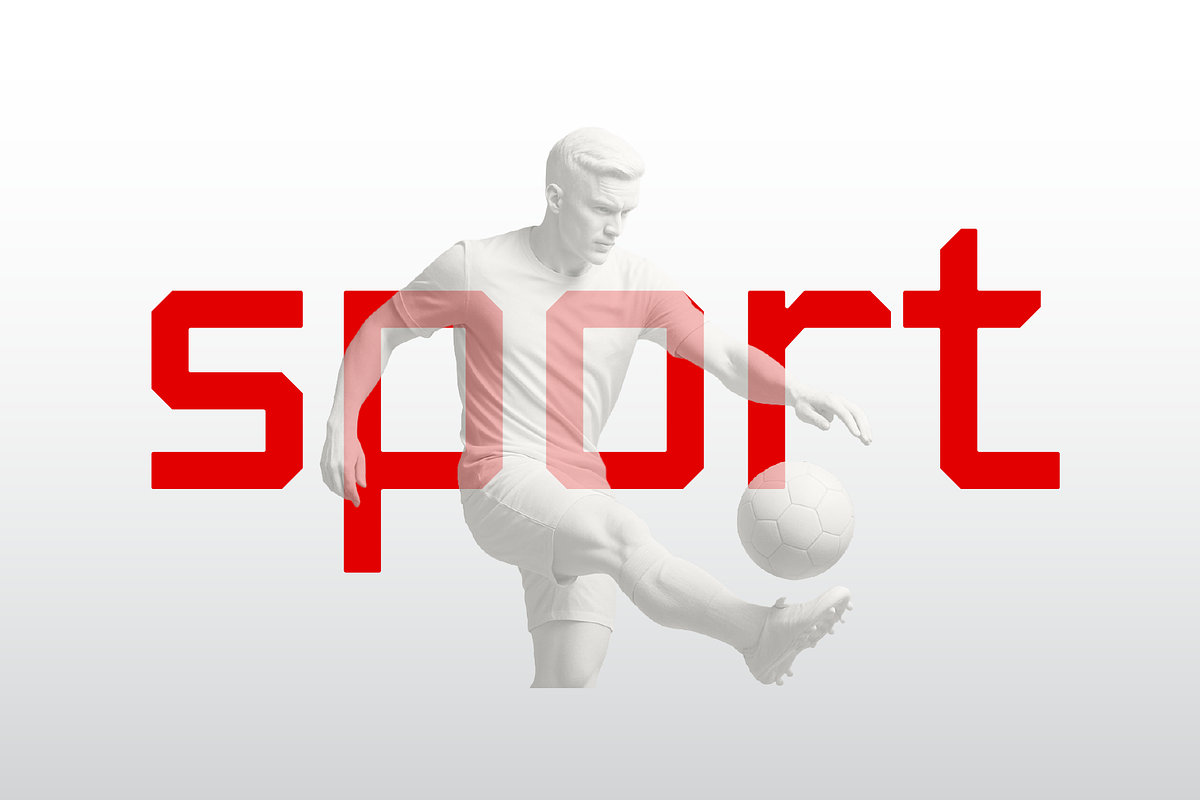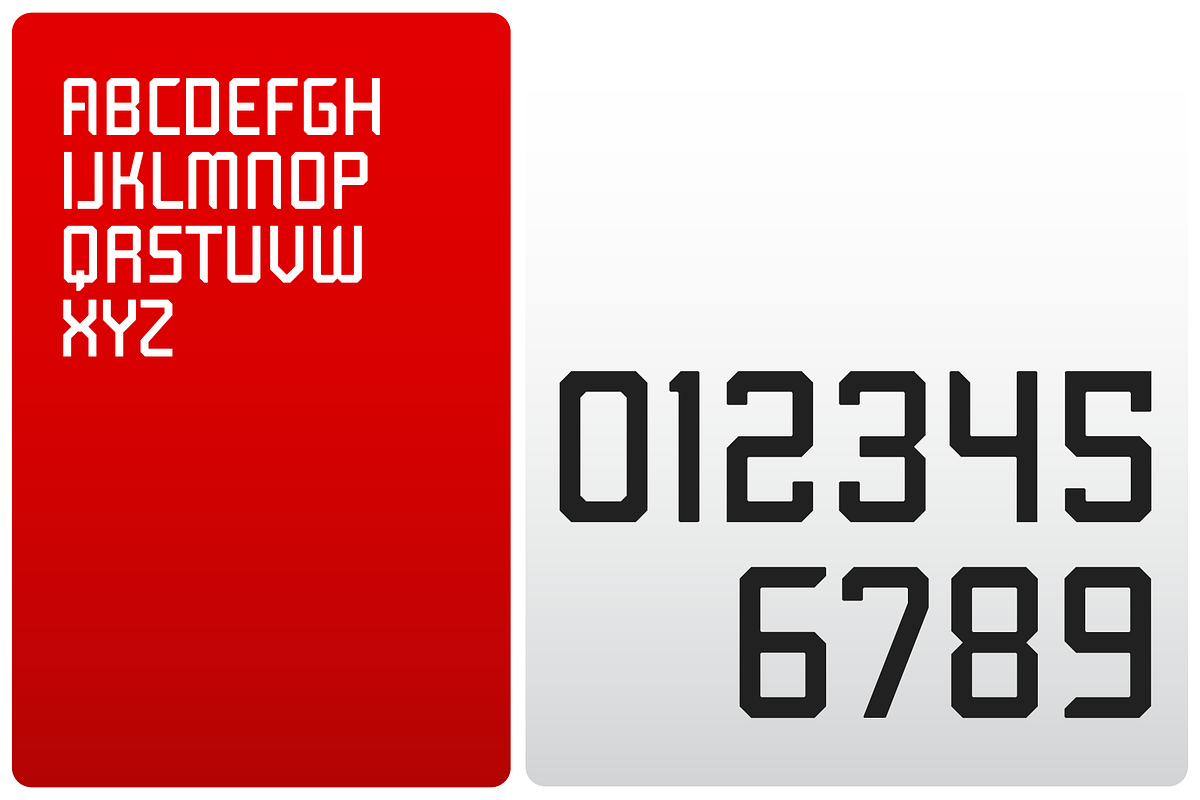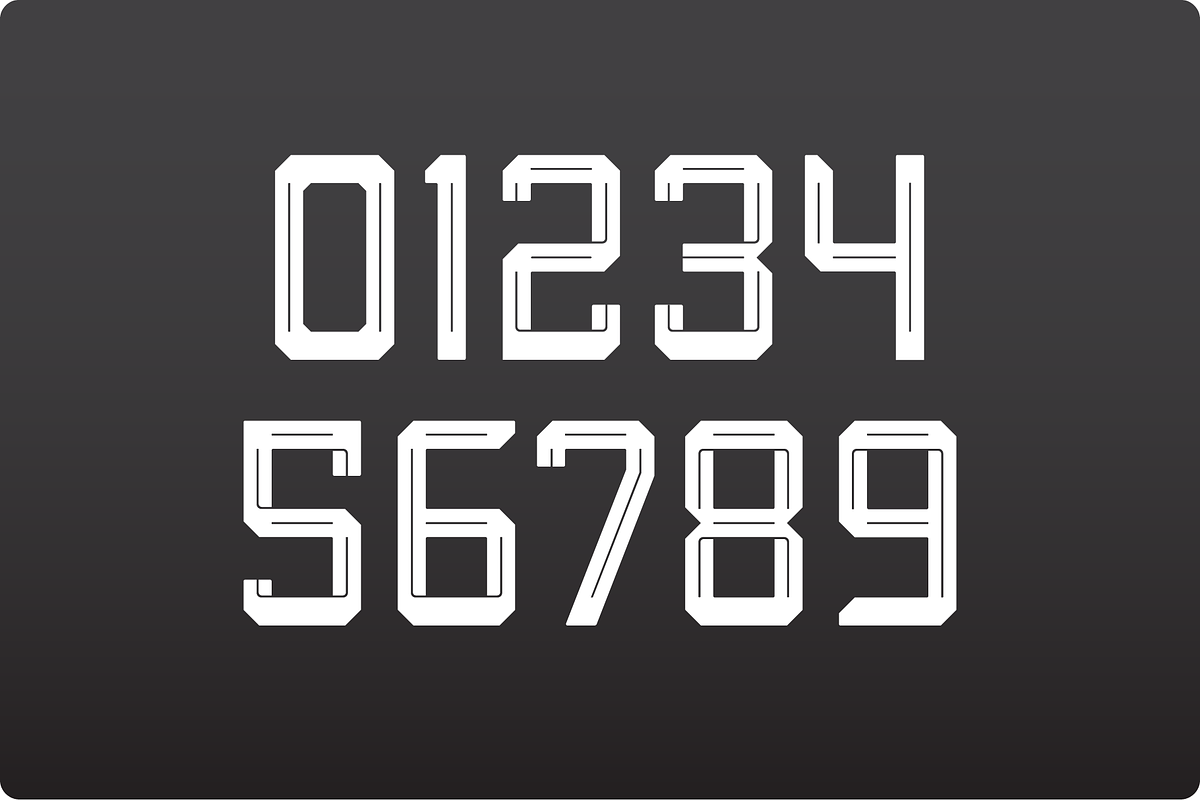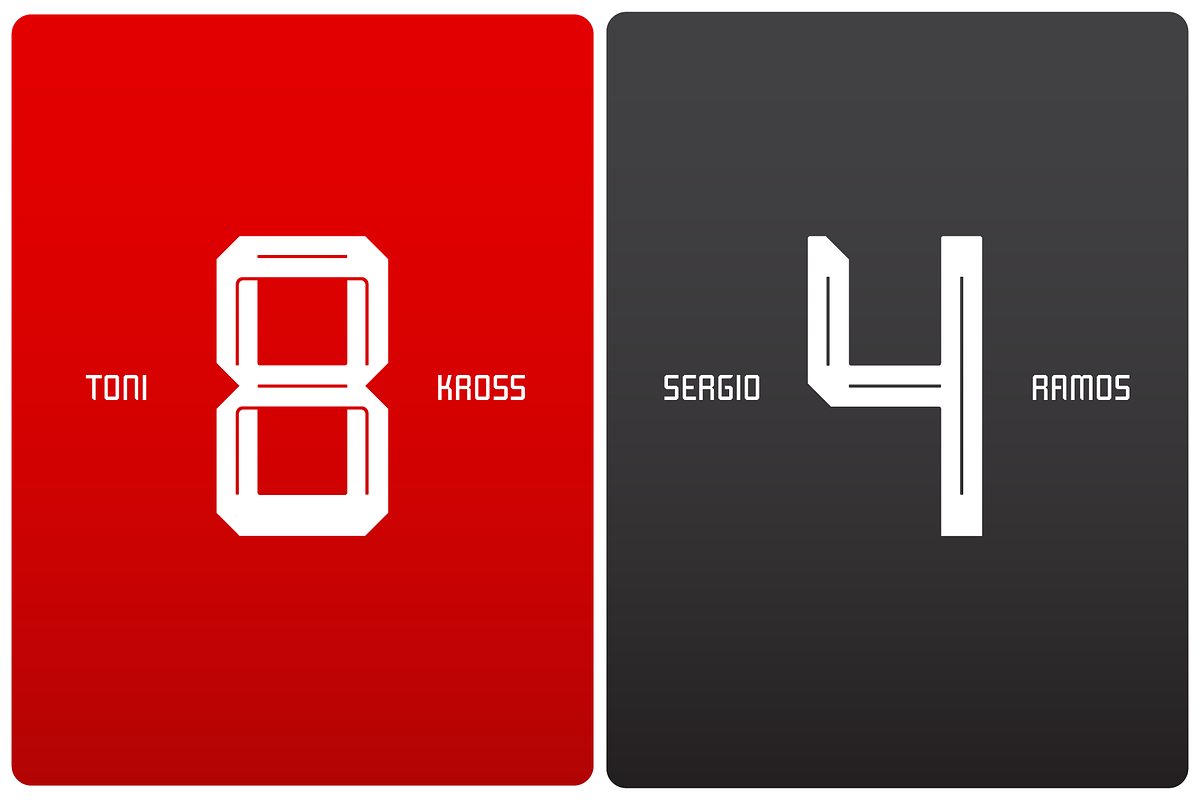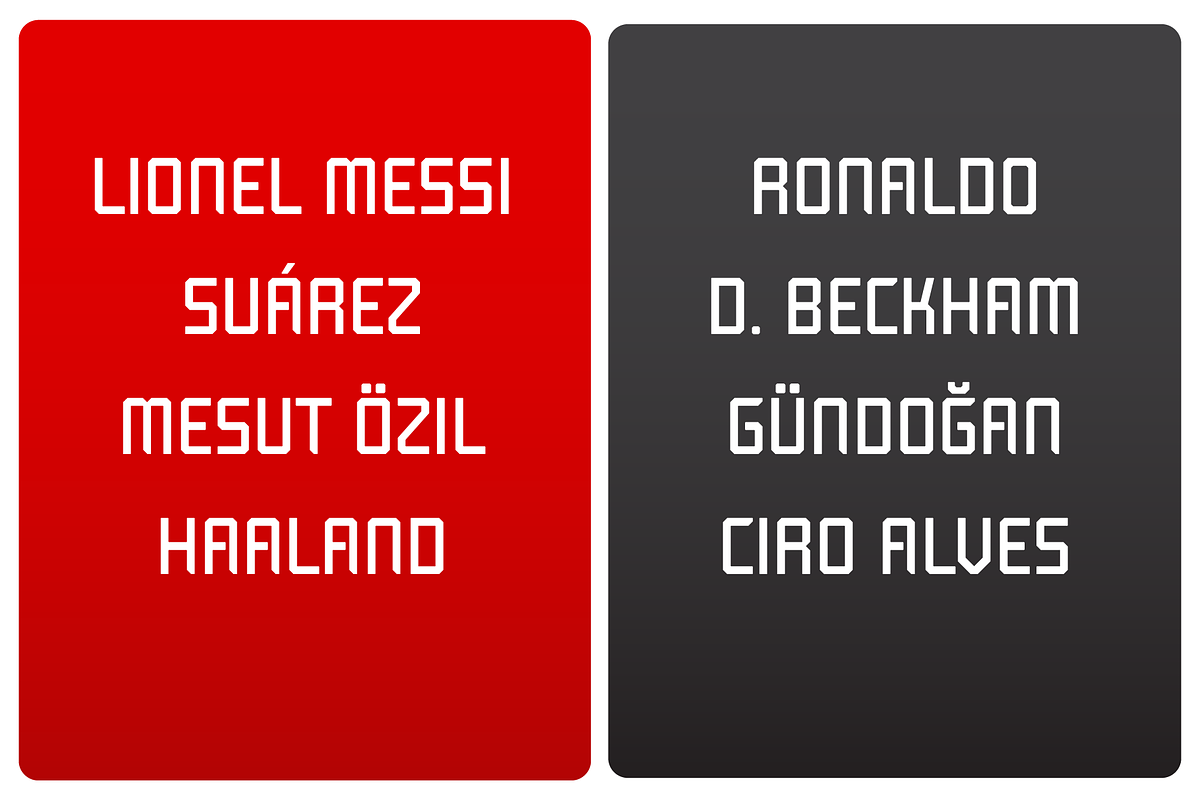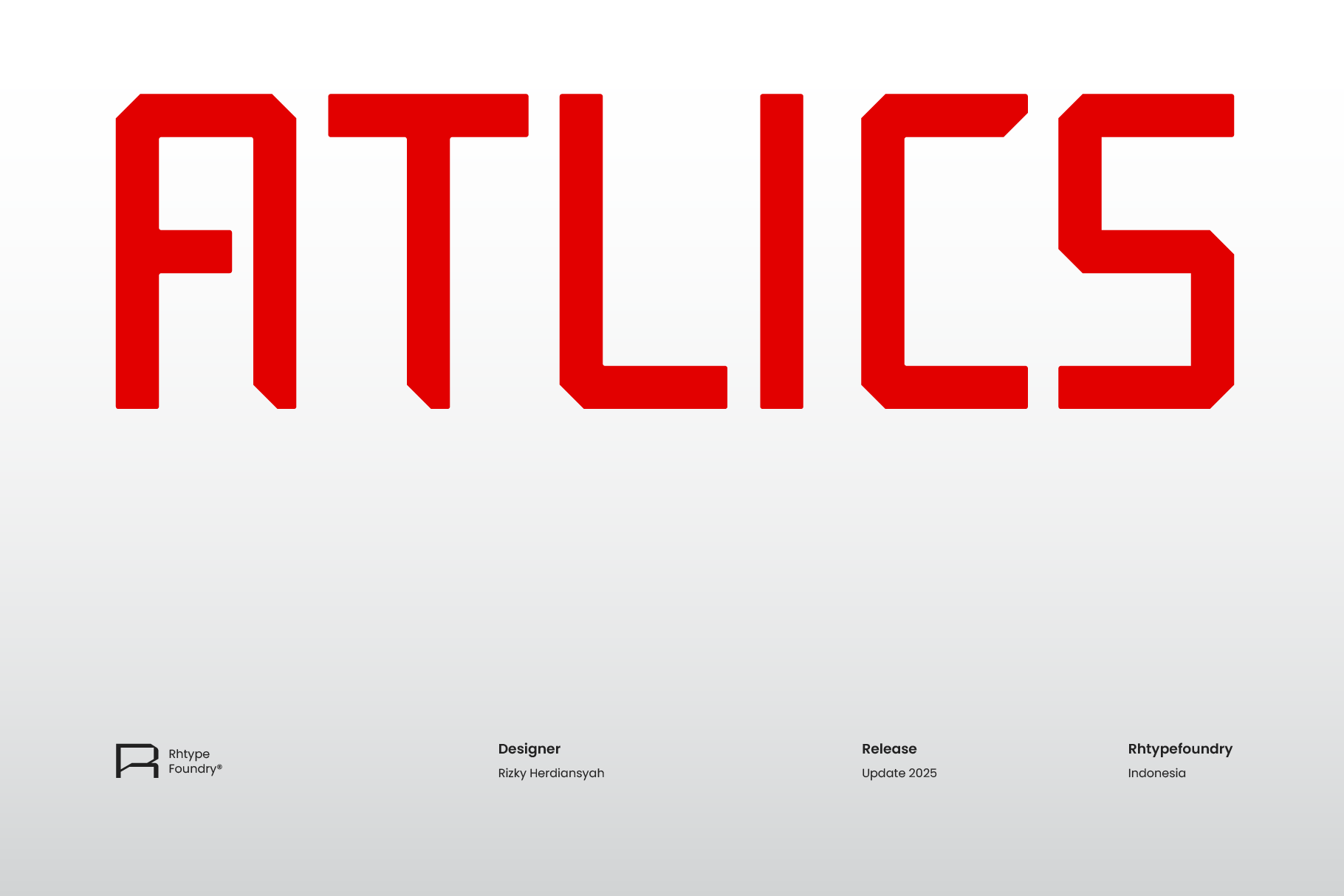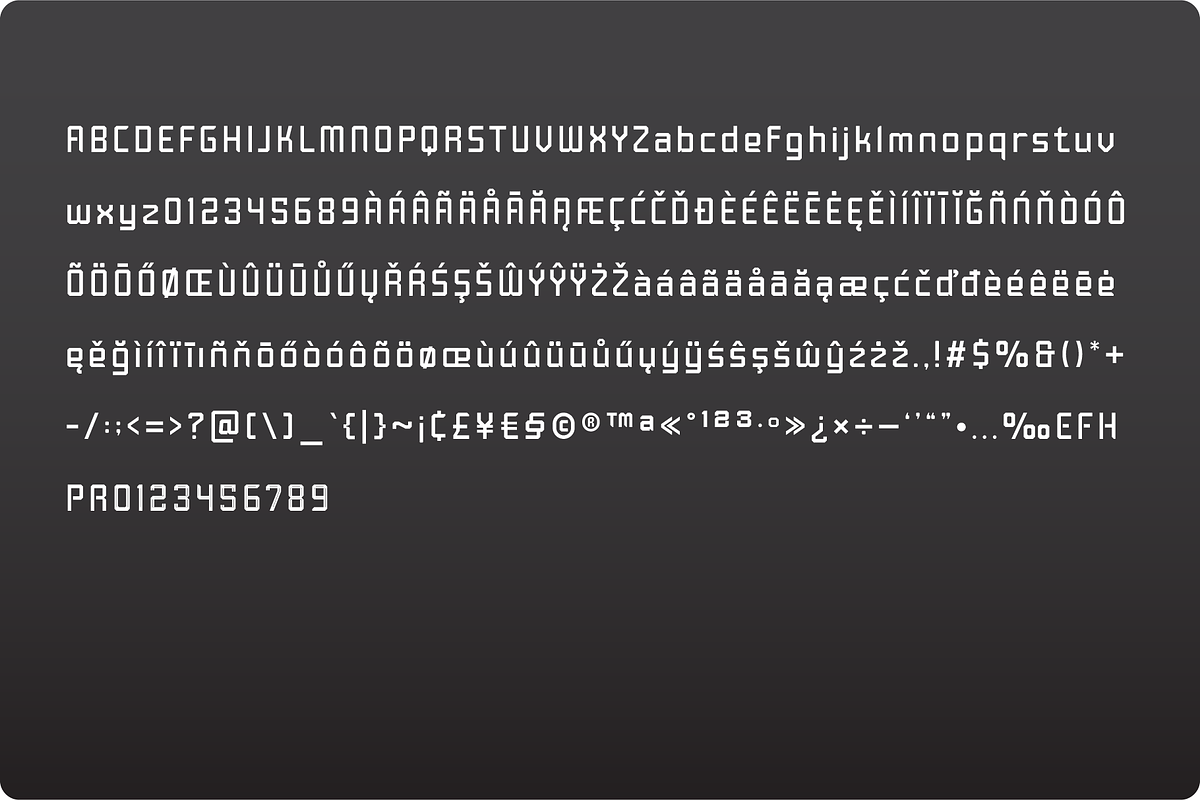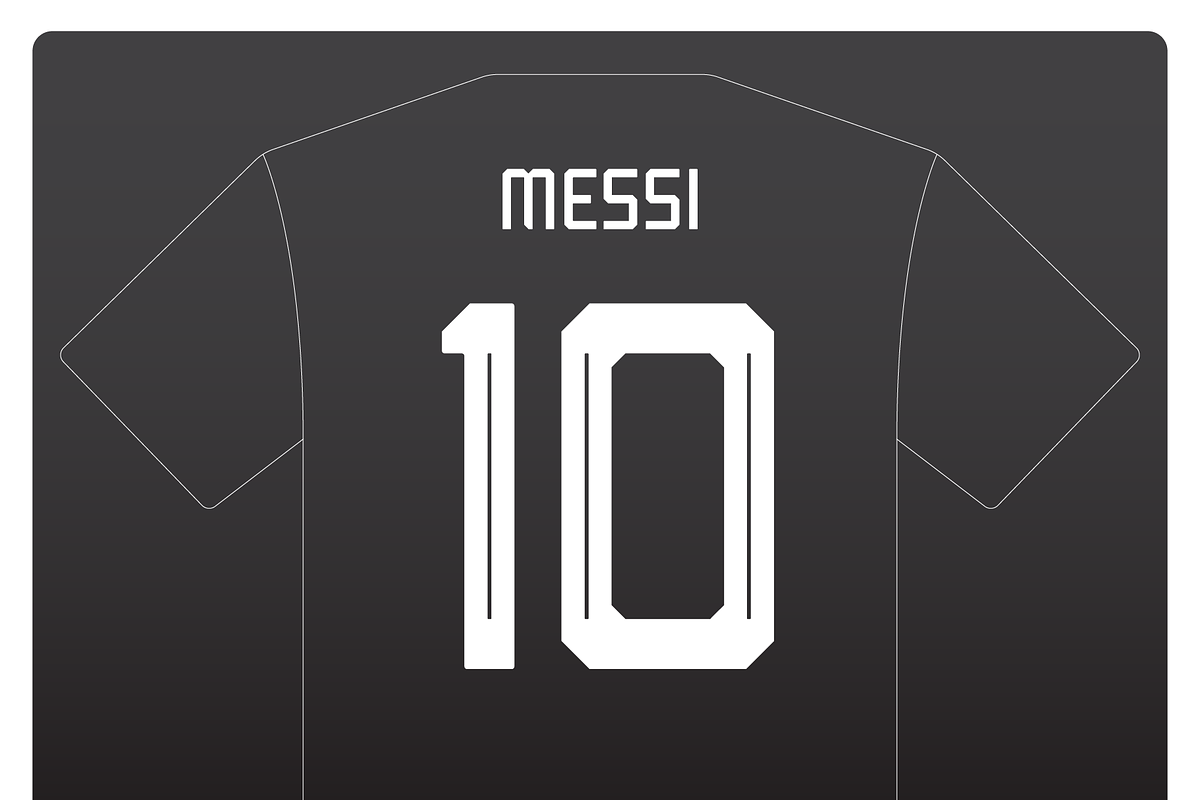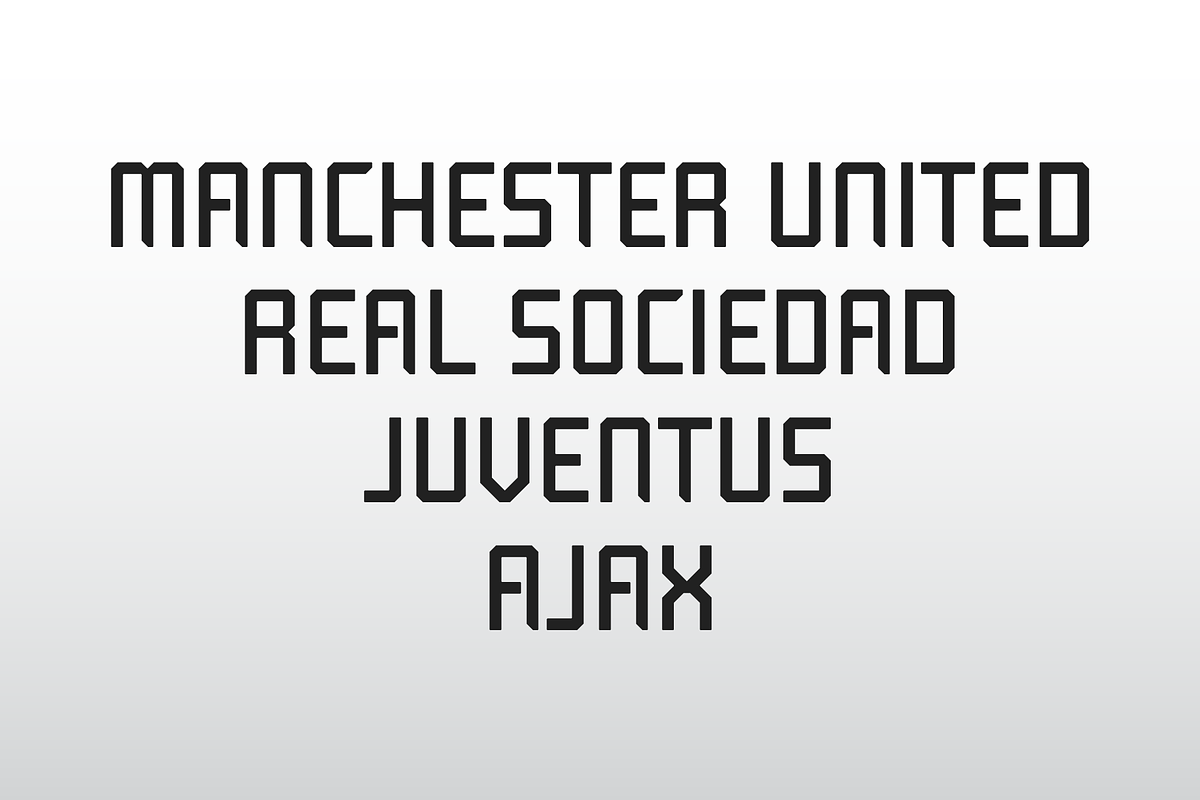
Atlics Sport Font
Atlics font is a typeface characterized by its upright lines and sporty style. It embodies characteristics of firmness, boldness, and sportiness. With its straight lines and dynamic appearance, Atlics font exudes a sense of determination and courage.